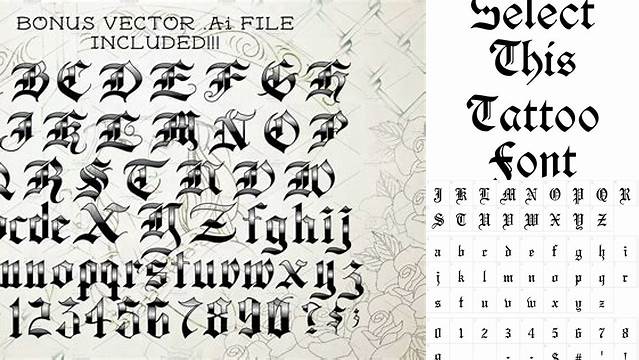
Hey guys! Thinking about getting some ink? A super popular choice is rocking an Old English font tattoo. It just screams classic and cool, right? But before you head to the tattoo parlor, you gotta nail down the perfect font. That's where an old english font tattoo generator free download comes in clutch. Let's dive into everything you need to know about finding the best generator and making sure your tattoo looks epic!
What's the Deal with Old English Fonts Anyway?
Before we jump into generators, let's quickly chat about why Old English fonts are so darn popular for tattoos. These fonts, also known as blackletter or gothic script, have a rich history. They were widely used in Europe during the Middle Ages and have this awesome, ornate vibe. Think fancy calligraphy, but way more badass when inked on your skin. The old english font tattoo generator free download helps bring this classic style to your fingertips!
Why Use an Old English Tattoo Font Generator?
Okay, so why not just pick a font from a list your tattoo artist has? Well, a generator gives you way more control and options. With an old english font tattoo generator free download, you can:
- Experiment with different styles: See how your chosen word or phrase looks in a ton of different Old English fonts.
- Customize the font: Adjust the size, spacing, and even add embellishments to make it totally unique.
- Visualize your tattoo: Get a clear idea of what the finished product will look like on your skin before you commit.
Finding the Right Old English Font Tattoo Generator
Alright, let's get down to business. How do you find a good old english font tattoo generator free download? Here's what to look for:
- A wide selection of fonts: The more fonts, the better! You want plenty of options to choose from.
- Customization options: Make sure you can adjust the size, spacing, and other aspects of the font.
- User-friendly interface: Nobody wants to struggle with a clunky, confusing generator. Look for something that's easy to use.
- Preview feature: This is crucial! You need to be able to see what the font looks like before you download it.
Things to Consider Before You Download
- Font quality: Not all free fonts are created equal. Some may be poorly designed or have missing characters. Always preview the font carefully before downloading.
- Compatibility: Check if the font is compatible with your computer's operating system.
Using Your New Font for Your Tattoo Design
Now that you've installed your chosen font, you can use it to create your tattoo design. You can use a word processor like Microsoft Word or a graphics editor like Adobe Photoshop or GIMP. Simply type out your desired text in the Old English font and adjust the size and spacing to your liking.
Important: Take your design to your tattoo artist. They can advise you on the best placement and size for your tattoo, and they can also make any necessary adjustments to the design to ensure it looks its best.
Old English Font Tattoo Generator Free Download: Tips for a Killer Tattoo
Alright, you've got the old english font tattoo generator free download figured out. Now, let's make sure that tattoo is amazing. Here are some tips for getting a killer Old English font tattoo:
Sustainable Ink
As environmental awareness grows, we can expect to see a greater demand for sustainable tattoo ink that is made from natural and eco-friendly ingredients.
Conclusion: Rocking Your Old English Tattoo
So, there you have it! You're now armed with all the knowledge you need to find the perfect old english font tattoo generator free download and get an awesome Old English tattoo. Remember to choose a font that's meaningful to you, work with a reputable artist, and take good care of your new ink. Now go out there and rock that tattoo with confidence!